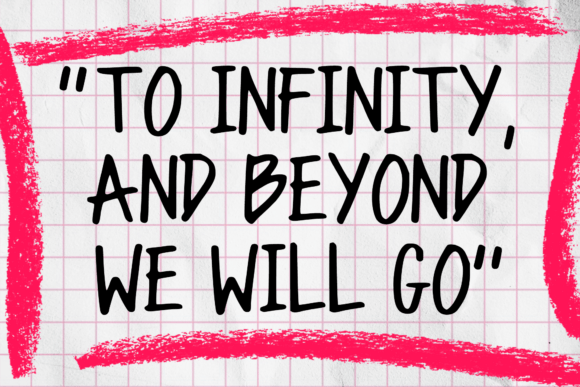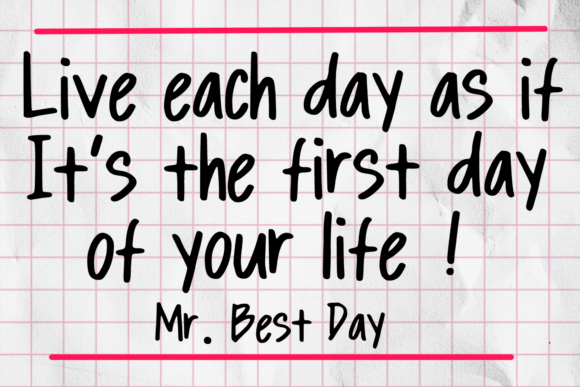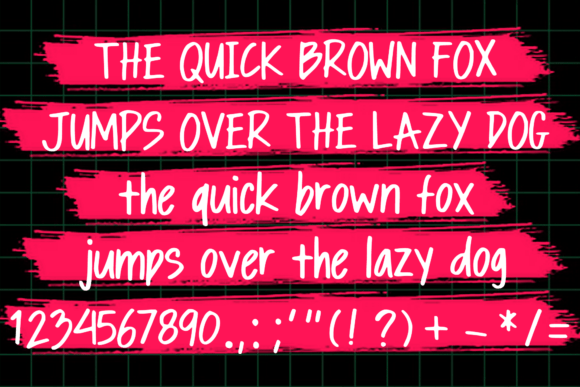
Introducing Great Book Marker Font: Elevate Your Designs with a Fun and Versatile Thin Marker Font
Are you a designer or crafter looking for a font that can add a super cool touch to your designs? Look no further than the Great Book Marker font! This fun and versatile daily use font is suitable for everyday use and is sure to elevate a wide range of design projects to the highest level.
What Makes Great Book Marker Font So Special?
The Great Book Marker font is a thin marker font that is perfect for creating a variety of designs, from stickers and t-shirt designs to amazing logo designs, magazine or book covers, comics, cartoon drawings, and many more. Its unique and playful style makes it an excellent choice for designers who want to add a personal touch to their work.
With the Great Book Marker font, the design possibilities are endless! Here are just a few ideas to get you started:
- Stickers: Create fun and colorful stickers for kids or adults using the Great Book Marker font. You can use it to design stickers for laptops, water bottles, or any other surface.
- T-Shirt Designs: Design amazing t-shirt designs using the Great Book Marker font. It’s perfect for creating casual wear, such as t-shirts, hoodies, or hats.
- Logo Designs: Create unique and eye-catching logo designs using the Great Book Marker font. It’s perfect for businesses, organizations, or personal brands.
- Magazine or Book Covers: Use the Great Book Marker font to design stunning magazine or book covers. It’s perfect for fiction, non-fiction, or children’s books.
- Comics and Cartoon Drawings: Add a playful touch to your comics and cartoon drawings using the Great Book Marker font. It’s perfect for creating engaging and fun content.
Why Choose Great Book Marker Font?
So, why choose the Great Book Marker font for your design projects? Here are just a few reasons:
- Unique Style: The Great Book Marker font has a unique and playful style that sets it apart from other fonts.
- Versatility: It’s a versatile font that can be used for a wide range of design projects, from stickers to logo designs.
- Easy to Read: The Great Book Marker font is easy to read, making it perfect for body text or headings.
- Fun and Engaging: It adds a fun and engaging touch to your designs, making them more appealing to your audience.
Tips for Using Great Book Marker Font
Here are a few tips for using the Great Book Marker font in your design projects:
- Experiment with Colors: The Great Book Marker font looks great in a variety of colors, so don’t be afraid to experiment and find the perfect color for your design.
- Mix and Match: Mix and match the Great Book Marker font with other fonts to create a unique and eye-catching design.
- Keep it Simple: Keep your design simple and clean to ensure that the Great Book Marker font is the focus.
In conclusion, the Great Book Marker font is a fun and versatile daily use font that is perfect for designers and crafters looking to add a super cool touch to their designs. With its unique style, versatility, and ease of use, it’s an excellent choice for a wide range of design projects. So, why not give it a try and see how it can elevate your designs to the highest level?